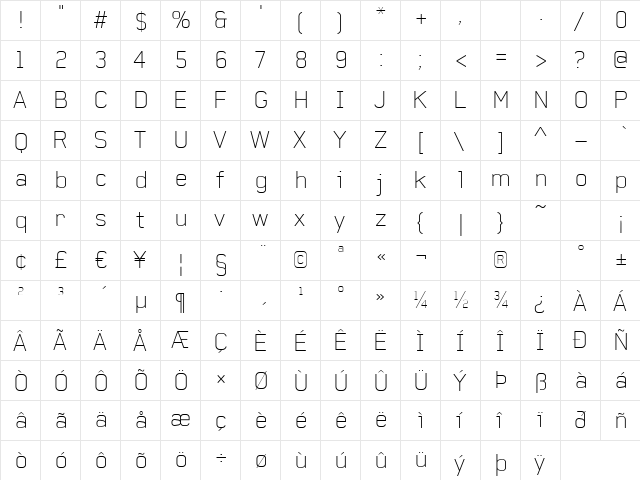
Baksheesh Thin
Design Context for Baksheesh Typeface
Baksheesh offers clean, dependable letterforms without strong stylistic allegiance, making it a practical choice for designers who need flexibility. The delicate stroke weight brings airiness and refinement to layouts.